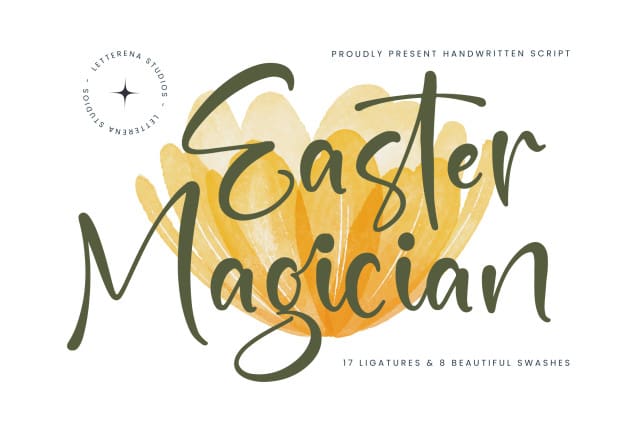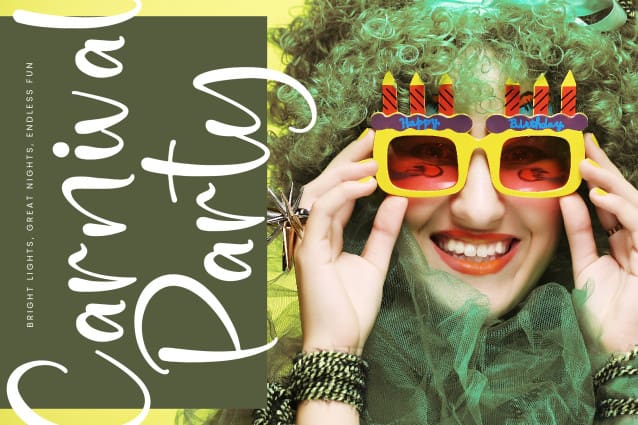
Easter Magician Font
Easter Magician Font – Handwritten Script , from Letterena, is a Luxury Script font, suitable for any projects such as: logos, branding projects, homeware designs, product packaging, mugs, quotes, posters, shopping bags, t-shirts, book covers, name card, invitation cards, greeting cards, label, photography, watermark, special events, and all your other luxury and beautiful projects that need a Luxury Script taste.